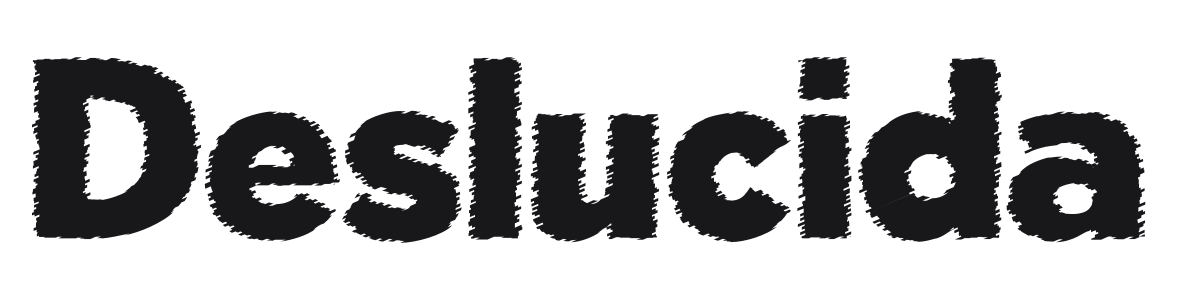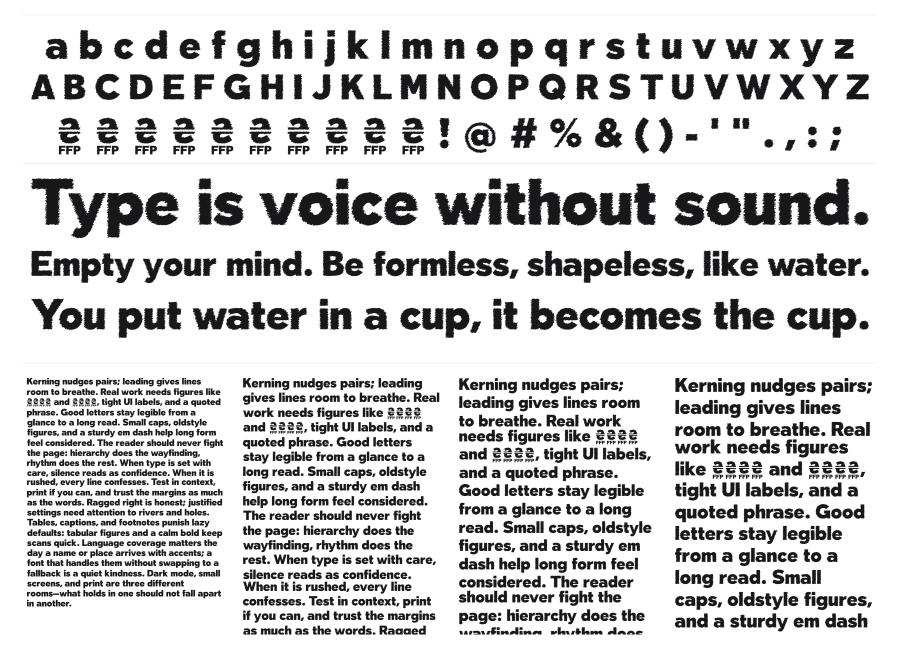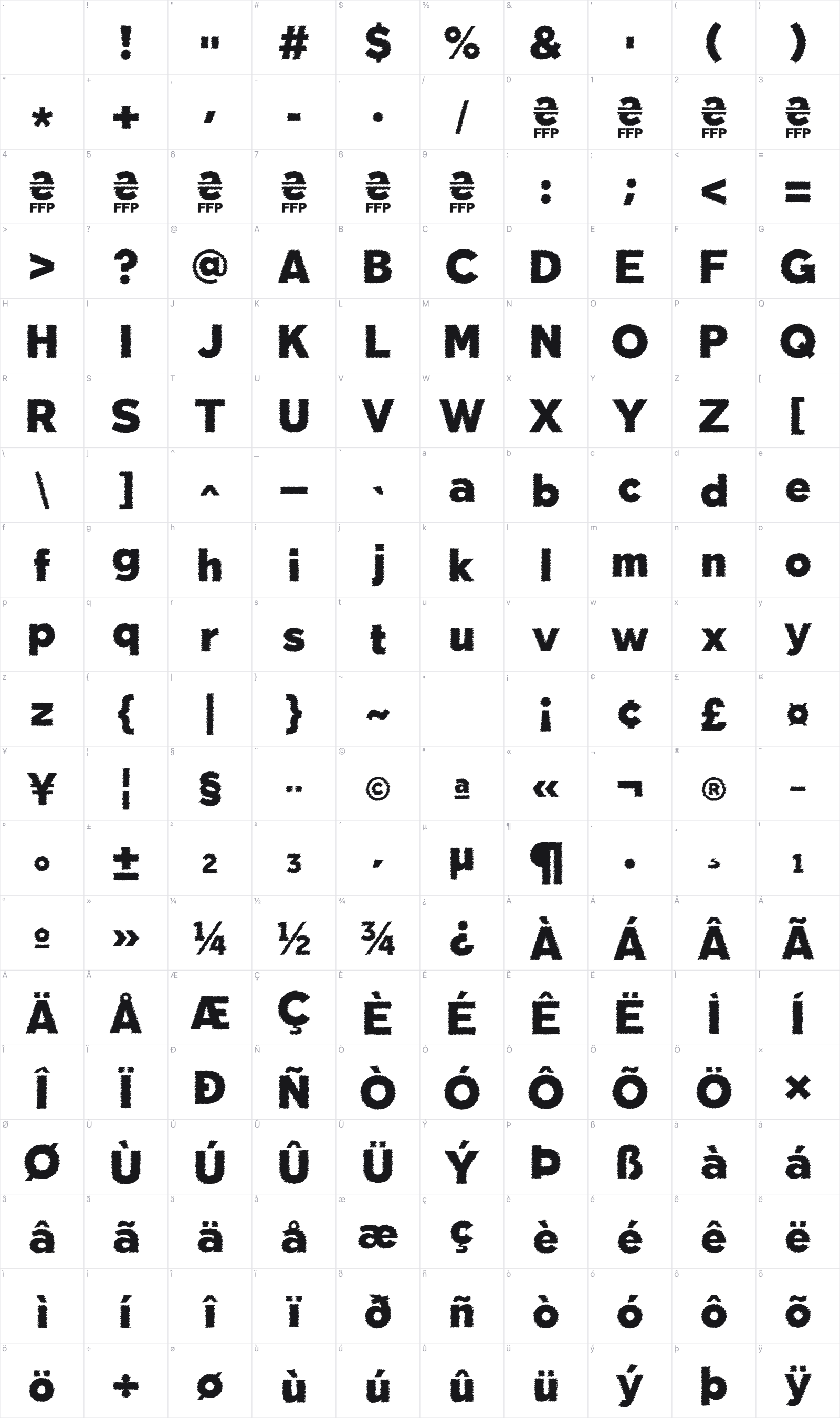
Deslucida
Deslucida is a heavy distressed sans-serif by Fernando Haro with a rough, eroded texture baked into every stroke. The base construction is a confident, wide grotesque, but the ragged edges give it a raw, handmade quality that sets it apart from polished display faces. It works best large, where the texture reads clearly.